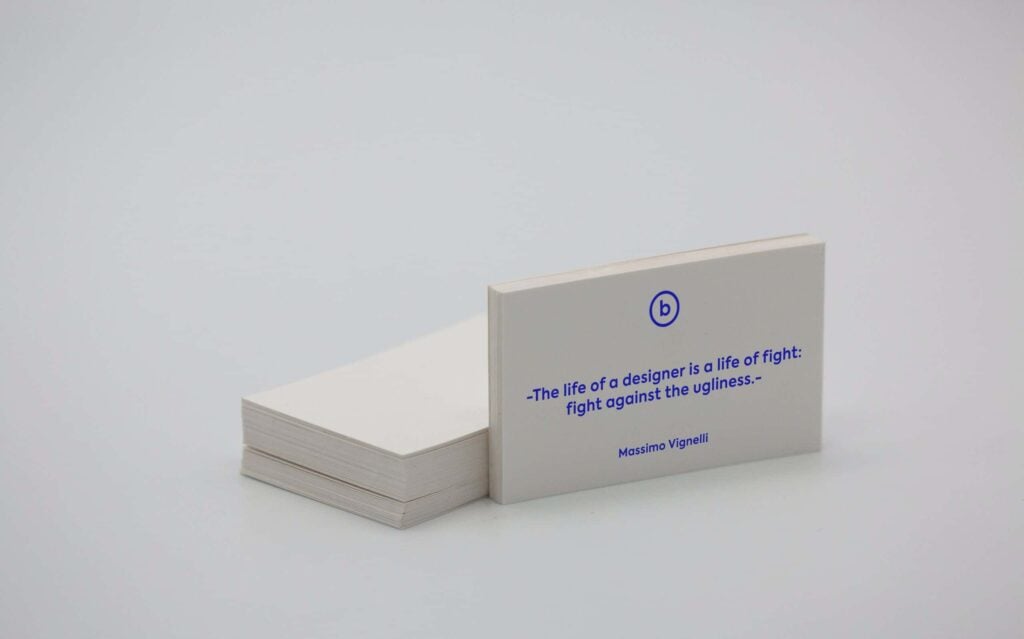
The Best Font for Business Cards
Technology has completely changed the way companies operate in the 21st century.
And yet, something as seemingly simple as business cards has stood the test of time and remains an integral part of any serious professional who wants to connect with prospective clients or partners.
But designing an effective business card is not easy. With very little space to convey what you represent, even the smallest details play a vital role. And choosing the best font for business cards is no exception.
But why do business card fonts matter? And what are some of the best fonts for business cards you should consider?
Let’s answer the important questions below and help you find the best font for a business card to match your branding elements and goals.
Why Font Matters
The average size of business cards in the United States is just 3.5 x 2 inches, which leaves very little room for creativity or elaborate designs. In most instances, you can only choose the type of logo that you use, the copy that you employ, the paper that you want to print on, and the font that you want the card to be written with.
Despite the fact that there are only a few variables that go into a business card, there are countless examples of how they can be used in different ways. And a beautifully-designed digital font for business cards is at the very center of making this possible.
By choosing the right business card font size and type, you can make your message pop and capture attention while also portraying yourself as a professional, both of which are crucial if the card is going to serve its purpose effectively.
The Best Font Size for Business Cards
Finding a great font for a business card is at the very center of the design, but how should you approach making a choice? How can you know what is the best font for business cards for your situation?
You may be tempted to choose a smaller font size for business cards to get more information on the card, but that is often a mistake. In order for the information to be useful, people have to read it, and few of your prospects are going to strain their eyes and squint trying to decipher the minuscule letters if you go too small. The best font for business cards doesn’t just serve a decorative purpose as part of the design; it also looks clean and is easy on the eyes.
At the same time, you don’t want to choose a font that’s too large—unless it’s part of a well-thought-out design—because you won’t be able to provide the essential information. The character limit for a standard business card is already low, so the perfect font needs to strike a balance between being convenient to read while still giving you enough space to display your message. That’s why it’s usually best to stick with the standard font size for business cards that have a point size proven to work well in small formats.
The typical font size for business cards is 10-11 pt font size for the body of the text, and can go a bit smaller for the contact information if you find yourself running out of space. If you choose a good font for business cards, this body text size will still be easy to read and look good as part of your creative design together with logos, contact details, company name, and other design elements.
Best Professional Fonts
Professional fonts for business cards determine more than just the style of the words on your card. It’s also a representation of you as a professional and how you want to position yourself.
If you want to convey a professional message, it’s a good idea to choose a professional font for business cards that has stood the test of time as part of a business card design. Three most traditional and time-tested fonts are:
1. Helvetica
2. Times New Roman
3. Arial
If you’re looking for the best font to use for business cards, these fonts offer a simple go-to choice for business purposes: they’re easy to read and recognizably straightforward. However, if you’re considering the best business card fonts to make your business card text stand out in a memorable way, you may want to consider a less common but equally professional font choice. So, what font is best for business cards if you want something more unique for your company or have a distinct aesthetic appeal? Finding the right font will come down to whether you want the font style to have a more elegant or modern feel.
To choose your perfect, unique business card font, the first thing to consider is whether your work is more of a serif or sans serif kind of business. Serif fonts are classic, literary, and easy to read. They are commonly used in publishing. Of the three fonts listed above, Times New Roman is the only serif font. Here are some other serif font ideas that convey timeless class:
• Baskerville
• Palantino
• Bookman Old Style
• Century
• Georgia
On the other hand, if your business is sleek, modern, and minimalistic, you may want to lean towards a clean-cut sans serif font. Sans serif simply means the letters do not have a serif. In other words, there are no extra lines or strokes attached to the main strokes of each letter. Arial and Helvetica are both sans serif fonts. If you’re looking for a sans serif font that’s just as professional as Helvetica or Arial, but a bit less common, here are some suggestions for you to mull over:
Author:
Natalie Wiley is the Content Marketing Supervisor at Printivity, where she combines more than 11 years of hands-on experience in both customer service and content marketing. Beginning her career as a Customer Service Representative, Natalie developed a deep understanding of the challenges, questions, and goals that customers encounter when ordering custom printed products. That firsthand experience has given her valuable insight into customer needs, product specifications, and the printing process from start to finish. Today, Natalie applies that knowledge to create educational, customer-focused content that helps businesses, organizations, and creators make informed printing decisions. She specializes in developing SEO-driven product pages, blog articles, and marketing resources that simplify complex printing topics and empower customers to get the best results from their print projects. https://www.linkedin.com/in/natalie-wiley-content-marketing/